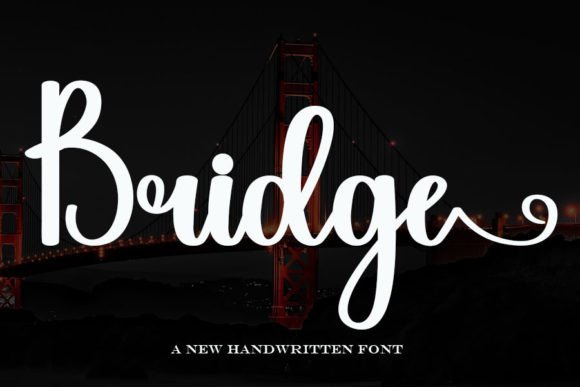
The Bridge Font: A Timeless Beauty for Your Designs
Have you ever been in the middle of a design project, and suddenly, you just can’t seem to find the right font? I know I have! It was a typical Wednesday afternoon when I was working on a branding project for a new coffee shop. My client wanted a font that was elegant, yet playful, and I just couldn’t seem to find the perfect fit. That’s when I stumbled upon the Bridge Font, and let me tell you, it was love at first sight! 💕
A Personal Review: What I Love About Bridge Font
The Bridge Font is a neat and beautiful handwritten font that exudes an elegant touch, making it perfect for a wide range of projects. Here are some things I absolutely love about it:
- ✨ Elegant and Refined: The font has a sophisticated feel to it, making it perfect for high-end branding, wedding invitations, and luxury product packaging.
- ✅ Timeless Style: The Bridge Font has a classic, timeless quality that won’t go out of style anytime soon.
- 💫 Versatile: The font is highly versatile and can be used for a variety of projects, from digital designs to print materials.
While I absolutely adore the Bridge Font, there are a few small quirks to be aware of:
- 🤔 Limited Character Set: Some users have noted that the font has a limited character set, which may not be ideal for projects that require a wide range of special characters.
- ⚠️ Not Suitable for Body Text: Due to its elegant, cursive nature, the Bridge Font may not be the best choice for body text, especially for longer pieces of content.
- Experiment with OpenType features, such as ligatures and stylistic alternates, to add more personality to your text.
The Story Behind Bridge Font
The Bridge Font was designed by a talented type designer who wanted to create a font that was both elegant and approachable. Inspired by classic calligraphy and modern digital design, the Bridge Font is a unique blend of traditional and contemporary styles.
| Font Name | Bridge Font |
| What is the Bridge Font best suited for? | The Bridge Font is perfect for high-end branding, wedding invitations, luxury product packaging, and other projects that require an elegant, refined touch. |
| Is the Bridge Font suitable for body text? | No, the Bridge Font is not recommended for body text due to its elegant, cursive nature. It’s best used for headlines, titles, and short paragraphs. |